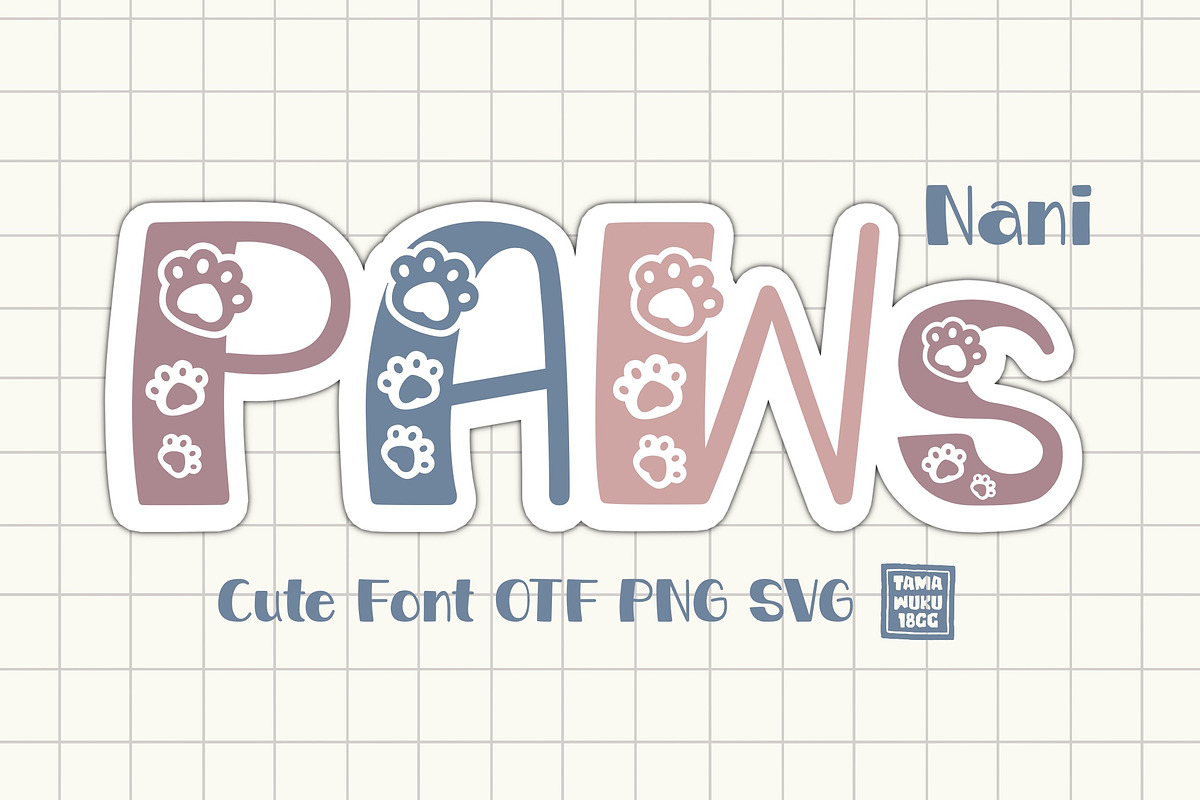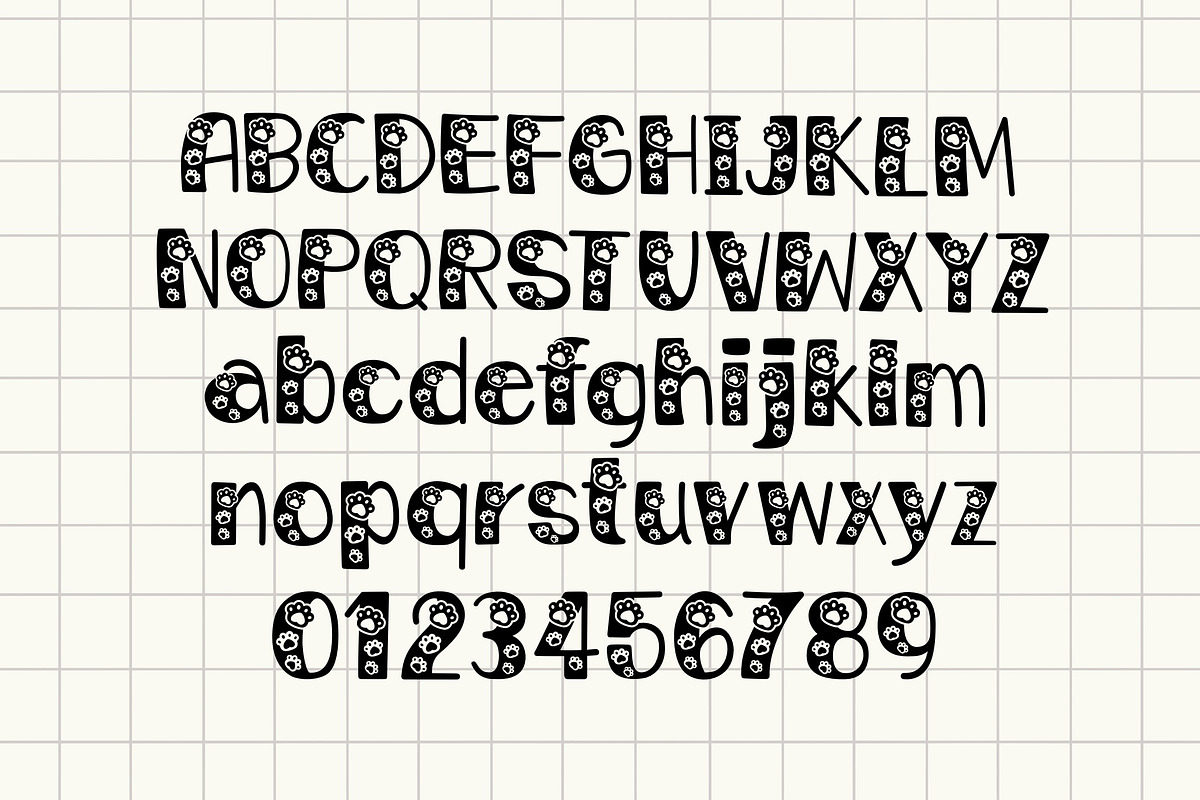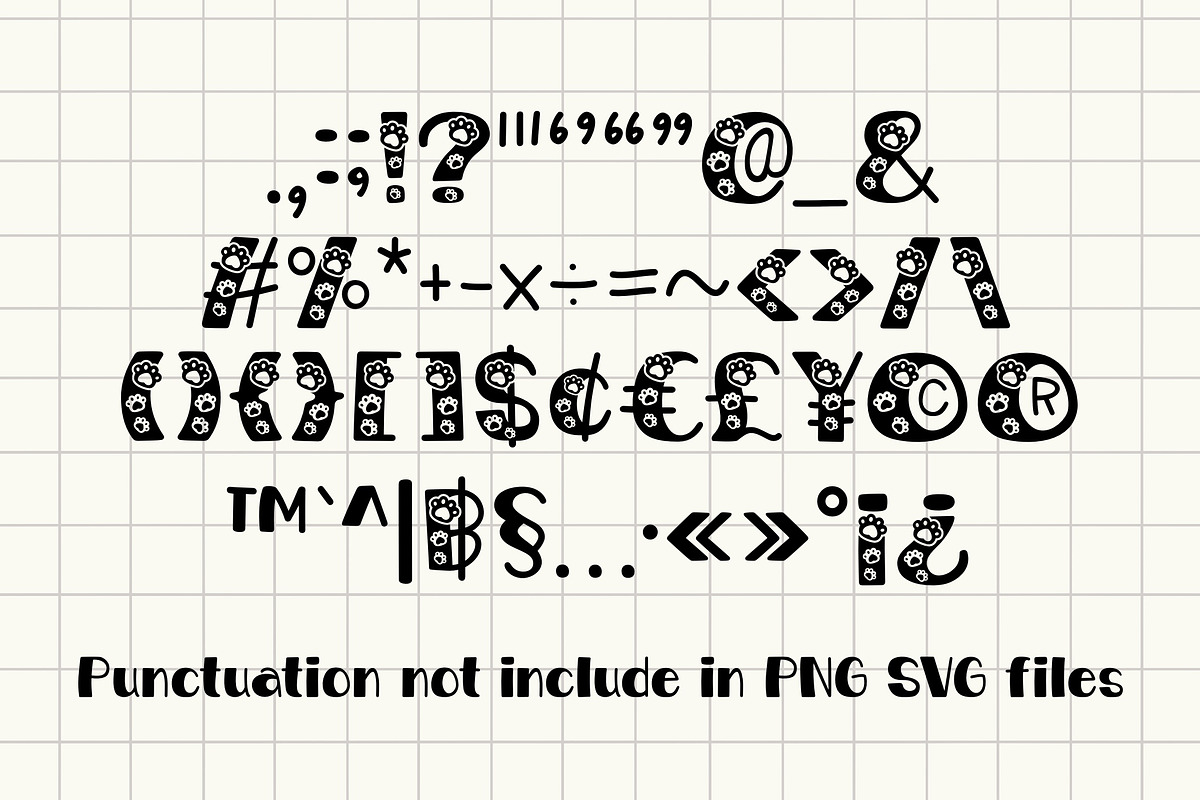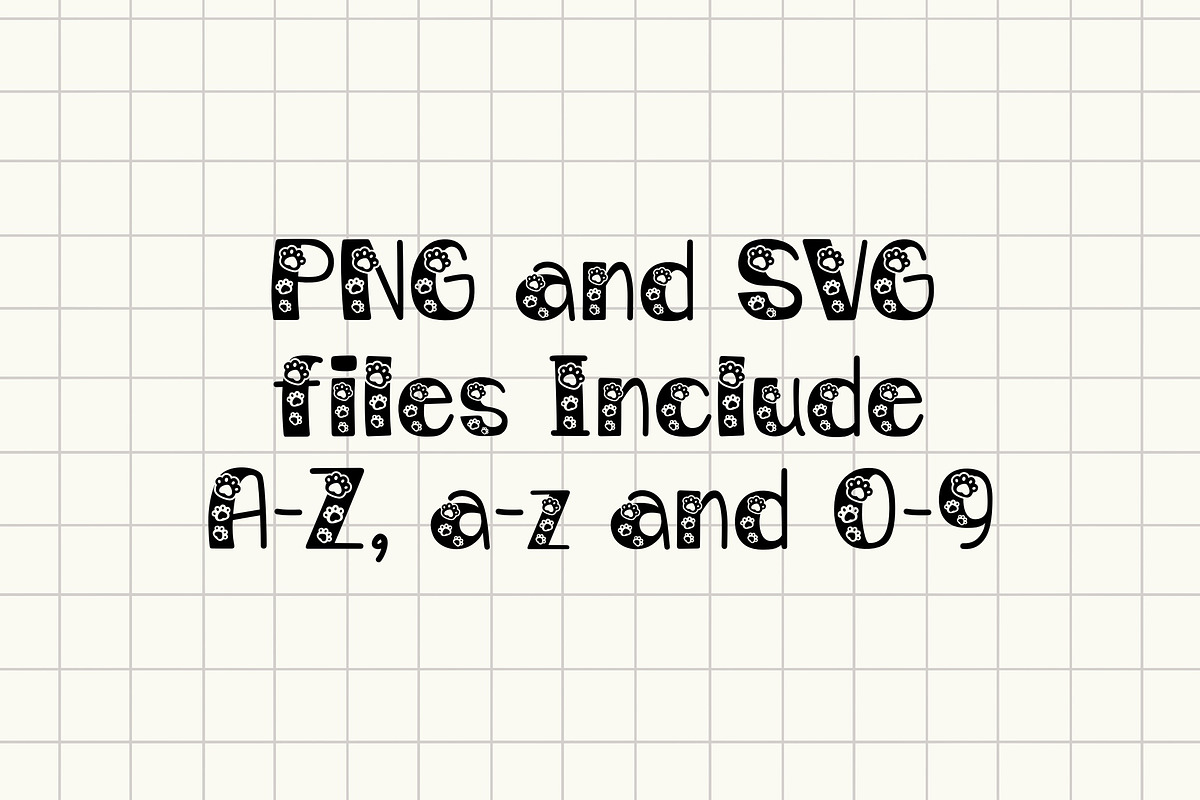
Paws Nani OTF PNG SVG
The playful and eye-catching “Paws Nani” font. With its decorative design featuring adorable animal paws, perfect for adding a touch of playfulness to any project related to pets or animals. that aim to create a lighthearted and engaging atmosphere.